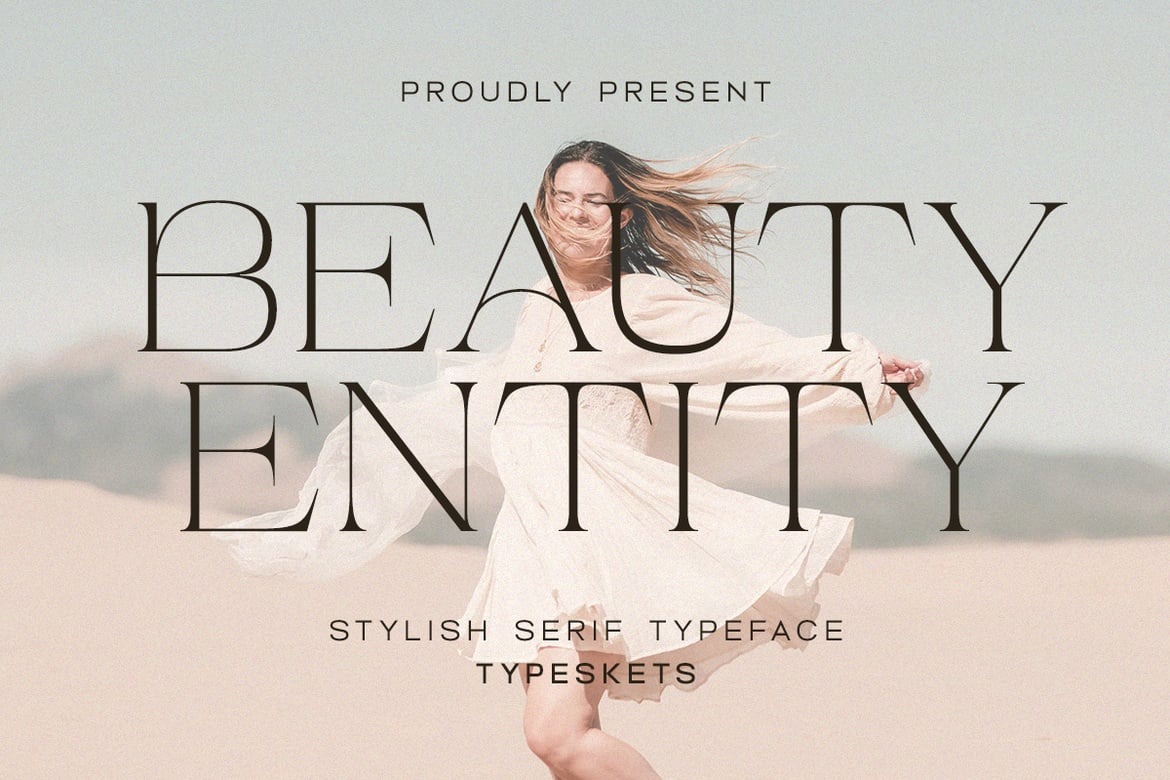
Beauty Entity Font
Beauty Entity Font is a flexible and reliable font created to fit multiple design needs, from branding and packaging to social media and editorial layouts. Beauty Entity is an elegant and modern serif typeface designed to bring sophistication to any visual project. Created with refined contrast, graceful curves, and timeless proportions, this font is perfect for branding, editorial layouts, luxury packaging, photography titles, fashion lookbooks, social media posts, and more.
Its refined aesthetic combines contemporary minimalism with a classic haute couture ambiance, making Beauty Entity a versatile choice for designers who want to enhance their visuals with elegance and artistic personality.
Whether you’re creating for high-end brands, weddings, lifestyle magazines, or aesthetic social networks, Beauty Entity offers a chic and refined typographic experience.